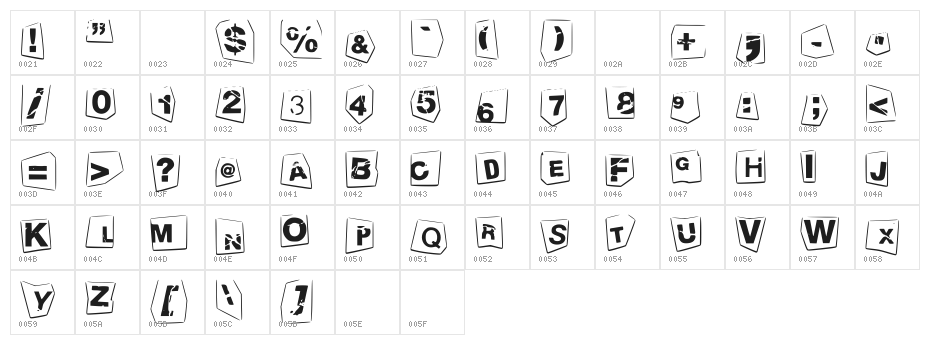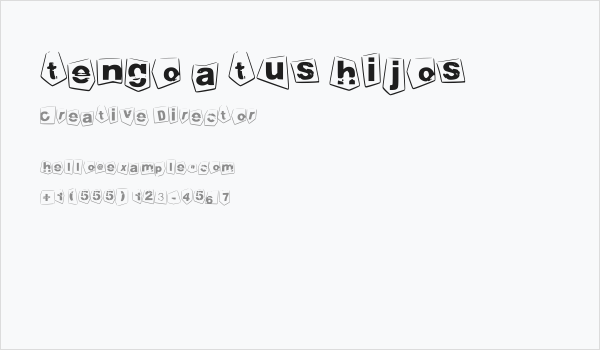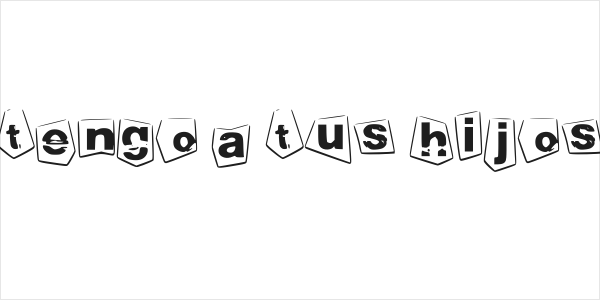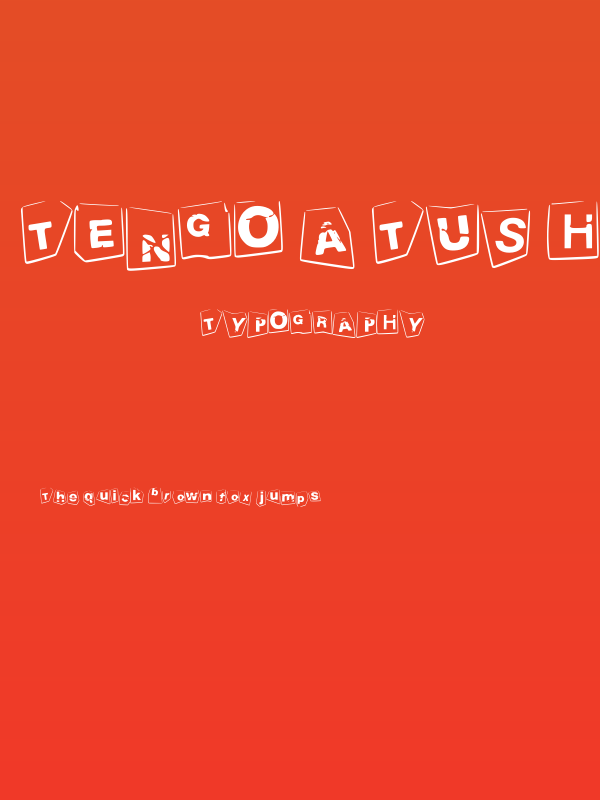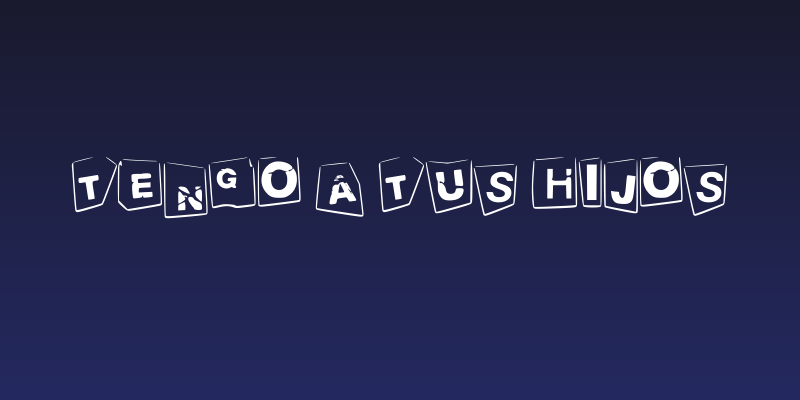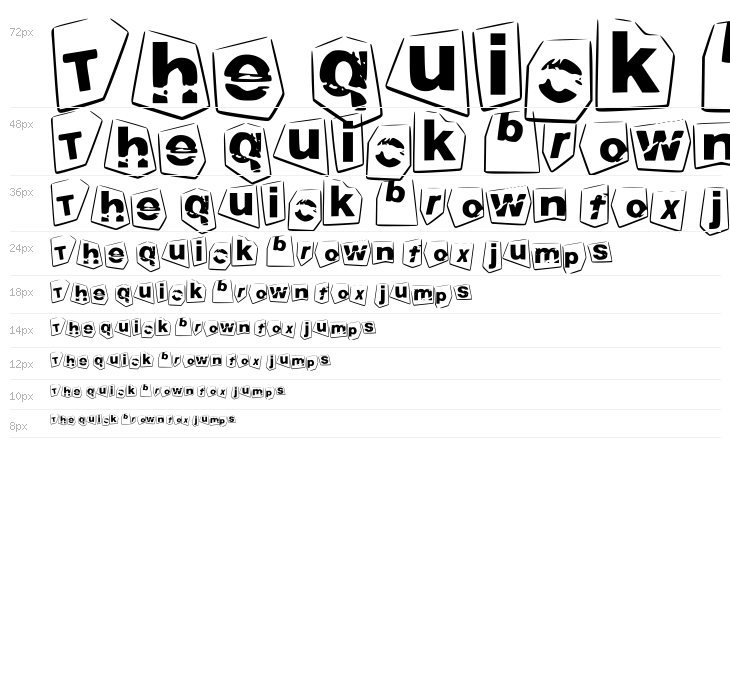
tengo a tus hijos Font
tengo a tus hijos Description
This font features a playful and quirky design, reminiscent of cut-out letters from magazines or newspapers. Each character is enclosed in a slightly irregular, angular shape, giving it a dynamic and spontaneous appearance. The letters are bold and have a strong presence, with a mix of uppercase and lowercase characters that maintain a consistent style. The font includes a full set of numbers and a variety of special characters, all following the same cut-out aesthetic. The irregular edges and varied angles of the characters create a sense of movement and energy, making it ideal for creative and informal projects.
| Use Case | Headlines, Posters, Creative projects |
| Proposed Projects | Ideal for creative projects such as posters, flyers, children's books, and any design requiring a fun, informal touch. |